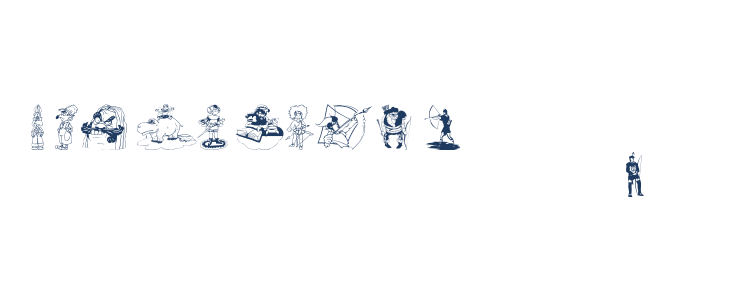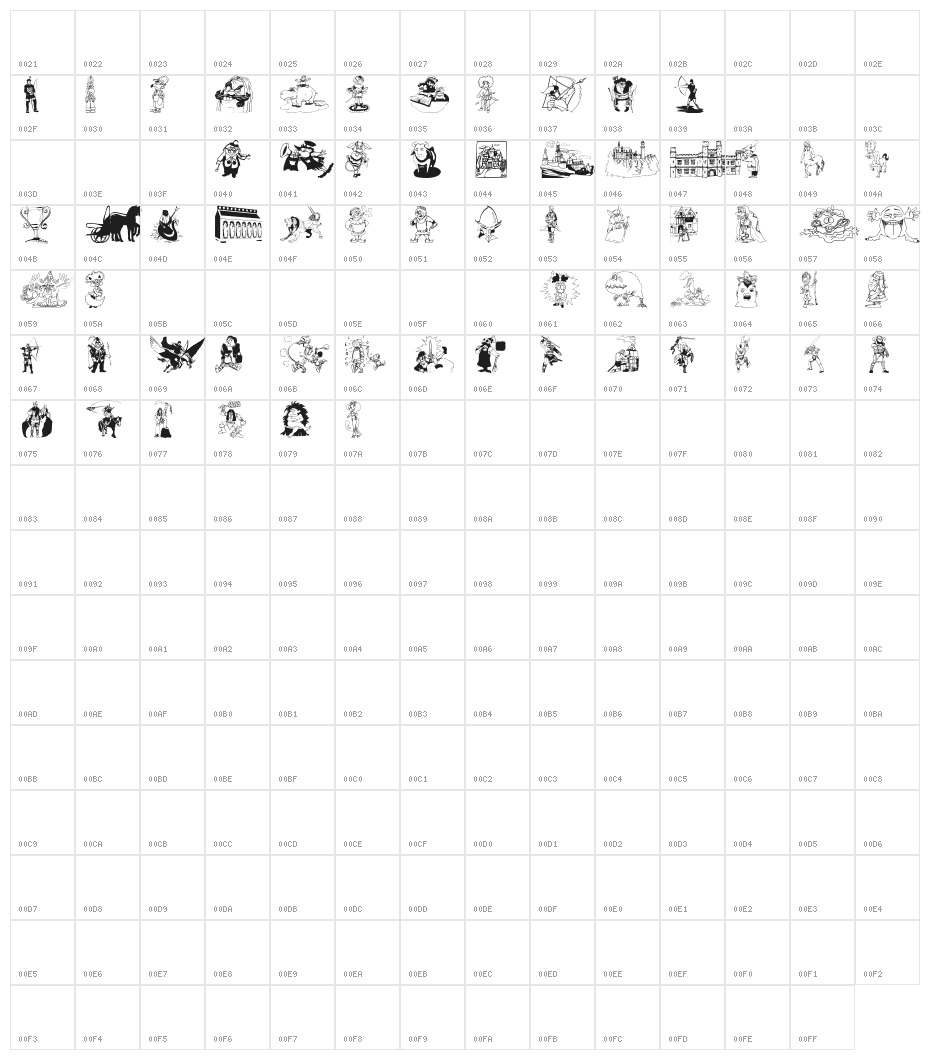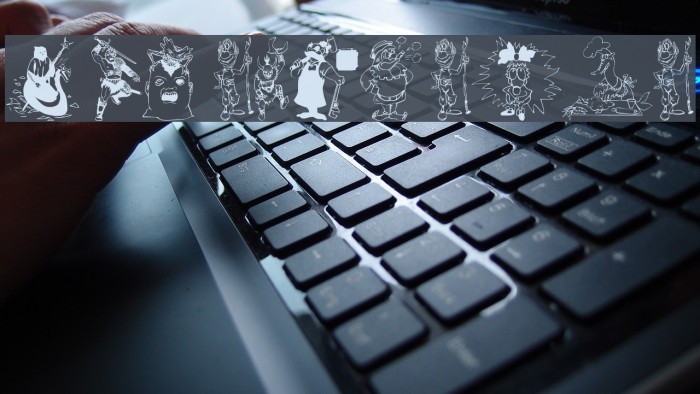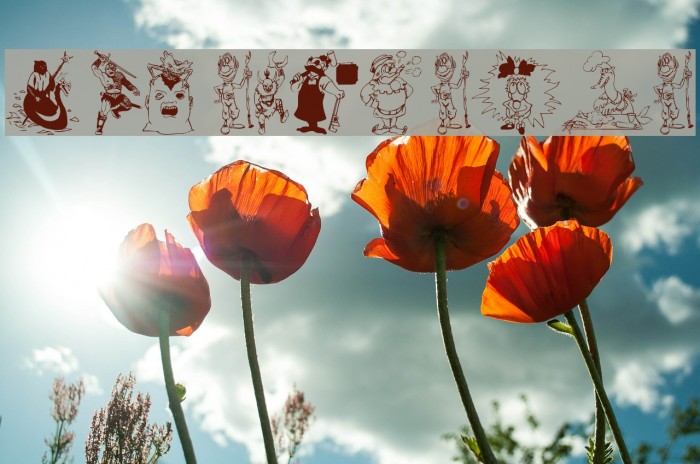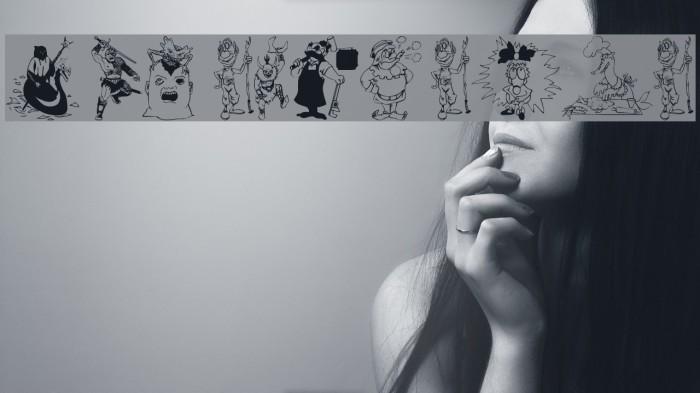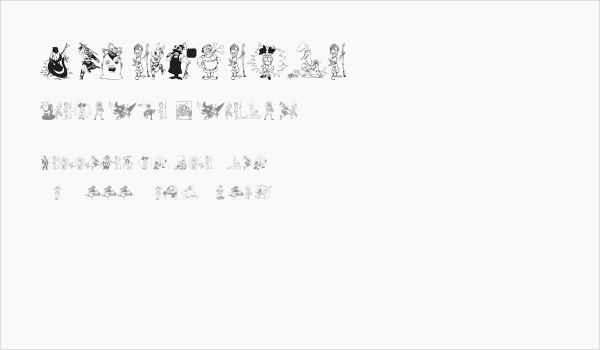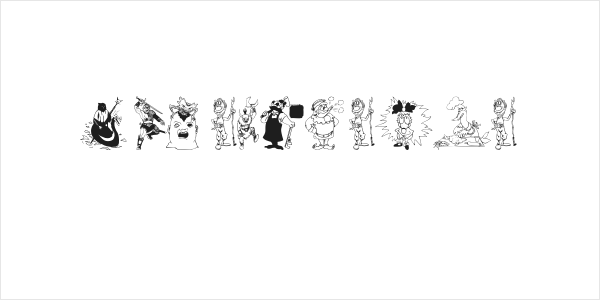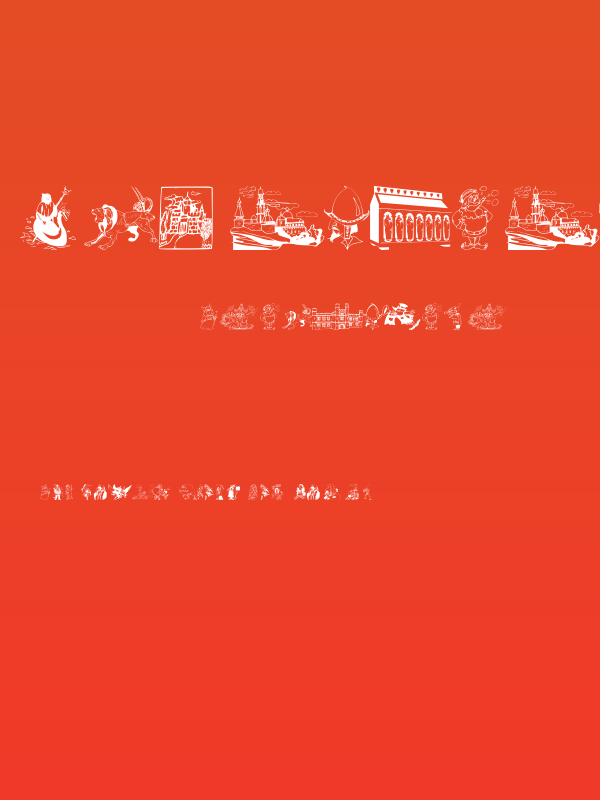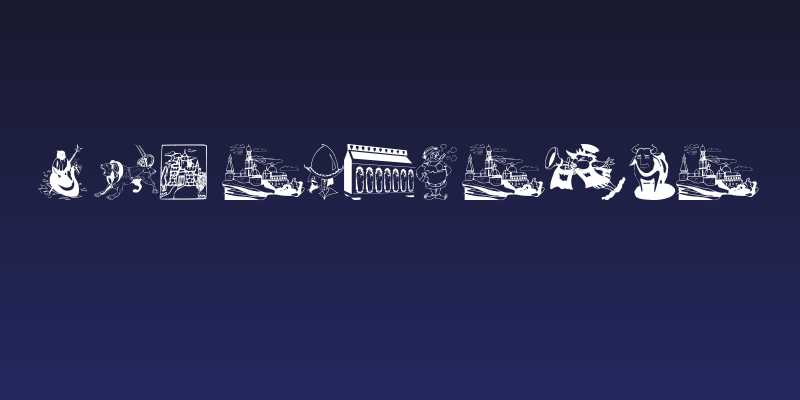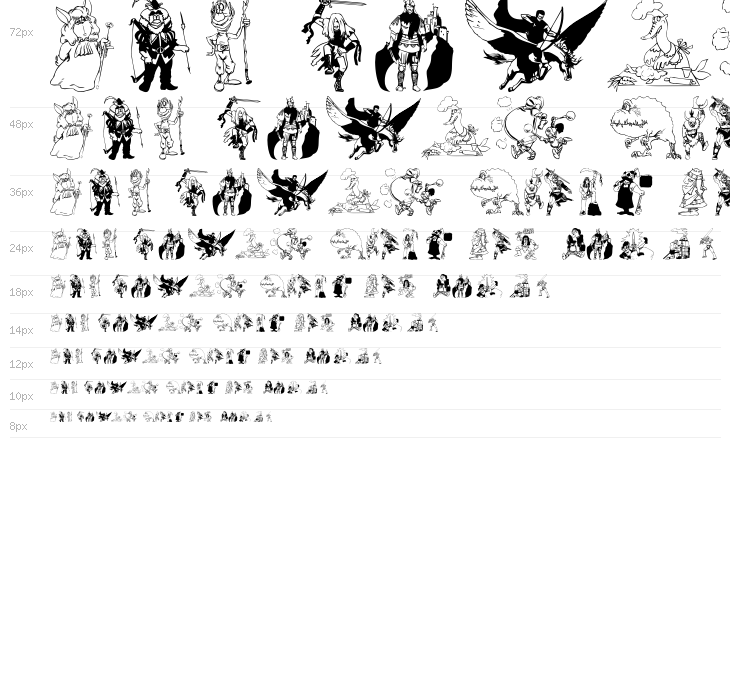
ModernPeace Font
ModernPeace Description
A highly decorative and playful display typeface where each character is represented by a unique, detailed cartoon illustration, making it more of a pictorial or dingbat font than a traditional alphabetic font.
| Overall Style | Decorative, Playful, Cartoonish |
| Use Case | Logos, Headlines, Posters, Themed event materials |
| Proposed Projects | Children's books, comic titles, party invitations, playful branding, educational materials. |